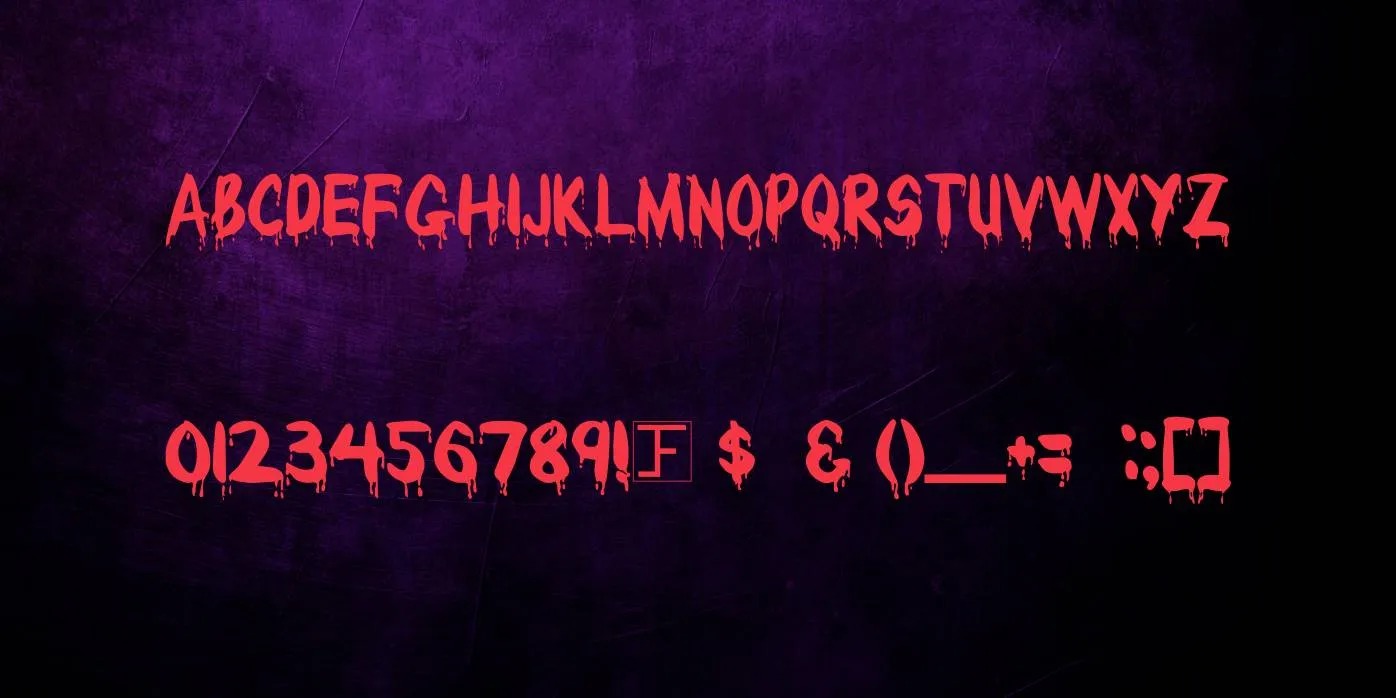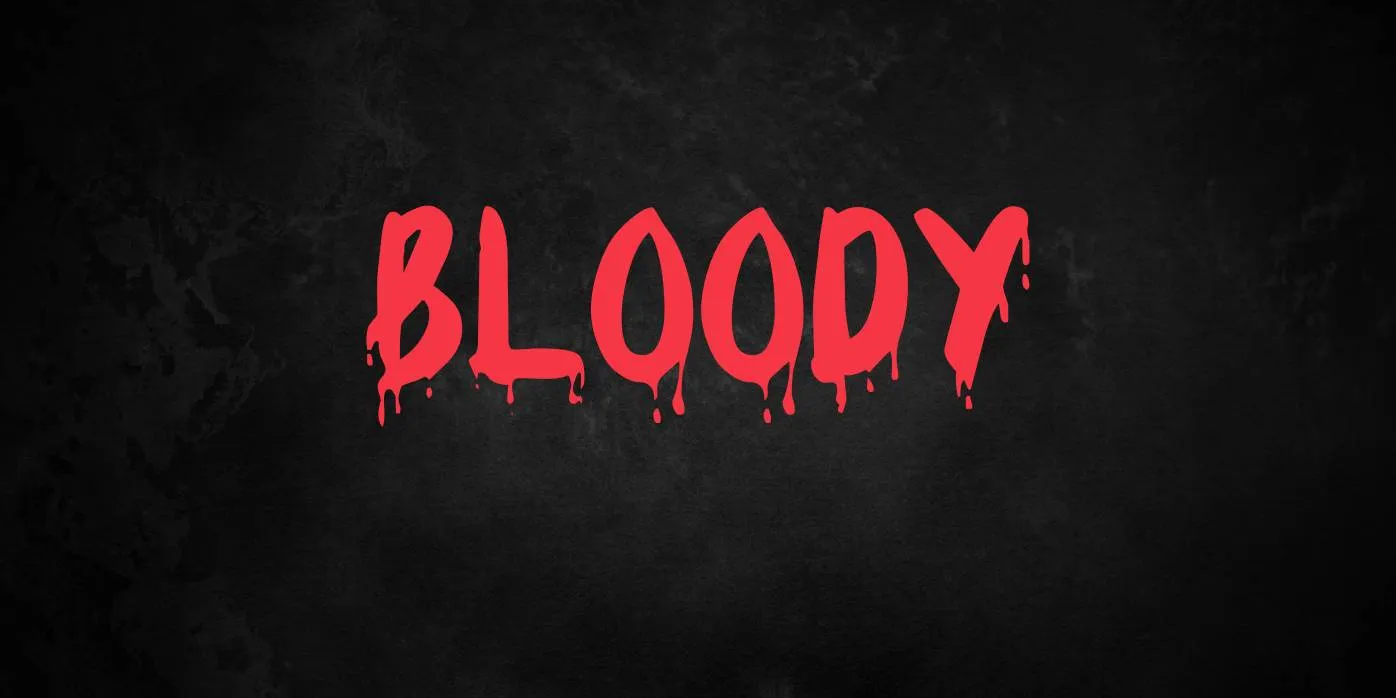
Bloody Font
Bloody Font is a very attractive horror font and can be used to design many projects. It was designed by James Fordyce. This font has many different features which makes it unique. This font is used by many big organizations or companies for their projects.
You can convert your simple text into horror designs by copying and pasting it into its online generator tool which works online and you do not need to download the font for this process. By pairing this font with other typefaces you can get more amazing results. You can pair this font with house of horror font to give a more attractive look to your projects. Usage                      You can make so many designs with this font It has characters, symbols, numbers, capital letters, and punctuations which makes it perfect to use in different projects.
It is a horror font and can be used to design movie logos and titles. You can also use this font for making attractive posters and banners. To make Halloween-themed party decorations you can also use this font. In different types of scary or horror video games, this typeface is also a very good choice.
This horror font was designed by James Fordyce. You can make so many projects by using this font. It has a very scary touch in it. Is Bloody font free for use?